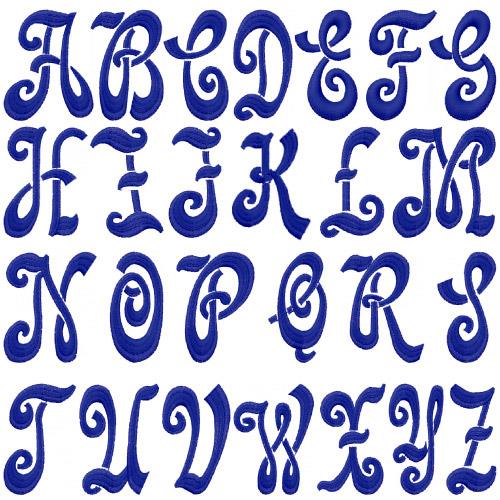
Embroidery Patterns is happy to present Freedom machine embroidery font which has Decorative script machine embroidery font showcases playful, swirling letter styles, perfect for adding charm to cushions and table linens. Available in PES, DST and 8 other formats. included. If you would like to view more embroidery fonts and alphabets please search our embroidery fonts page.